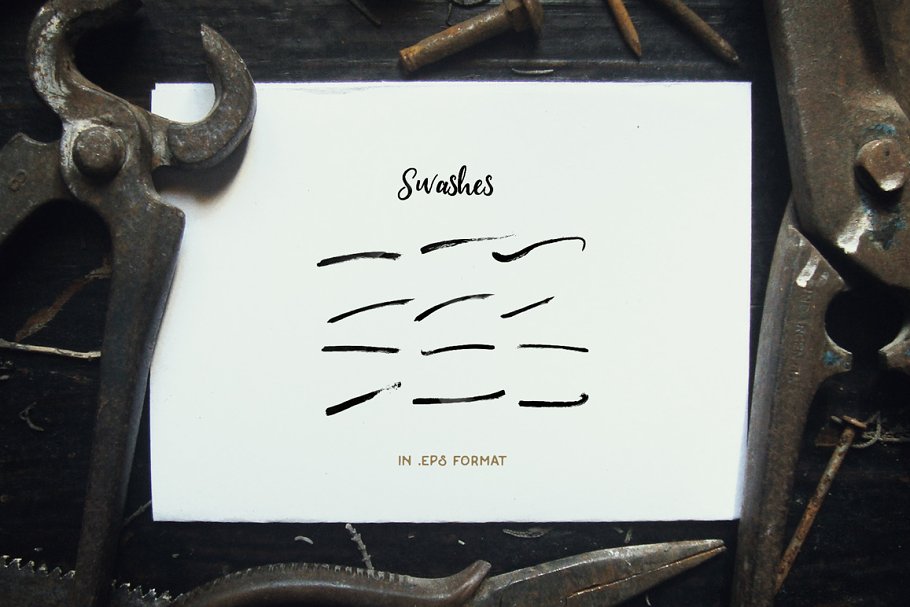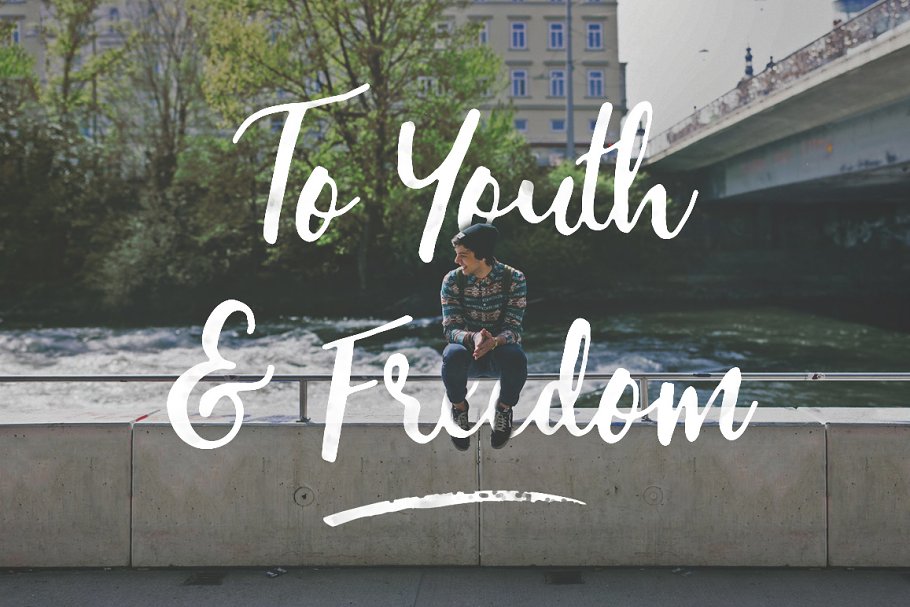
About the Yorkshire Brush Script Font
If you like Yorkshire, you will also love Greenstone, another hand drawn script typeface: http://crtv, mk/a0XZwIntroducing Yorkshire is a beautiful brush script created with both pen & brush to give a great contrast between thick and thin curves, Drawn, Scanned & Vectorized from paper to screen, I wanted to create an authentic brush typeface leaving the texture and imperfections the way they are